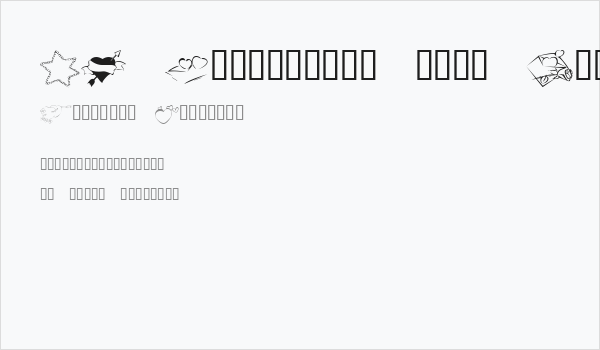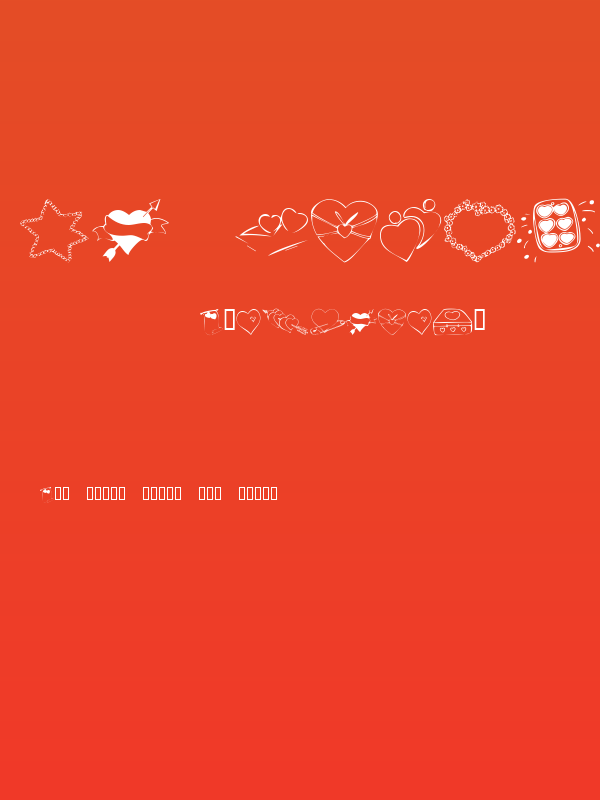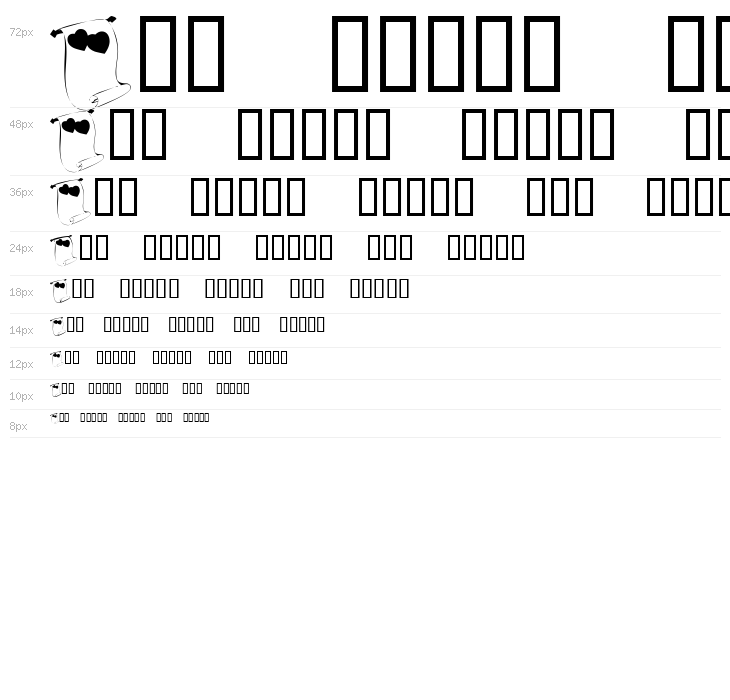
KR Valentines 2006 Seven Font
KR Valentines 2006 Seven Description
This collection features a playful and whimsical set of Valentine-themed illustrations, each character is a unique design incorporating hearts, arrows, and other romantic motifs. The designs are hand-drawn with a casual, fun style that evokes a sense of joy and celebration. The characters include various heart shapes, some with arrows, others with floral elements, and even some with humorous touches like faces or wings. The overall look is light-hearted and perfect for adding a touch of romance and fun to any project.
| Use Case | Decorative elements for cards and invitations. |
| Proposed Projects | Ideal for Valentine's Day cards, romantic event invitations, scrapbook embellishments, and festive decorations. |